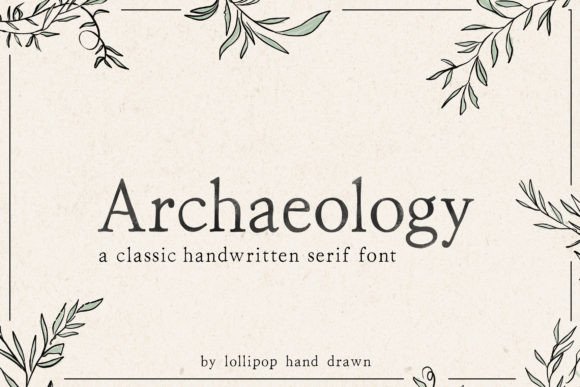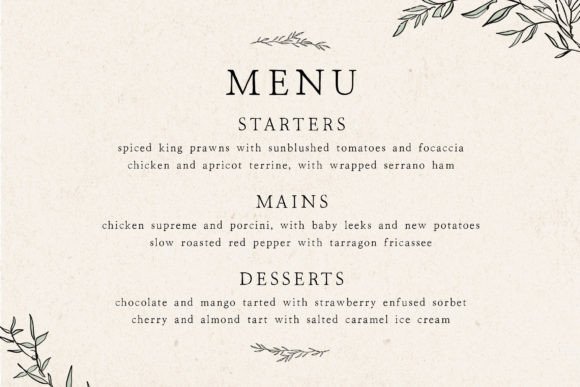
Archaeology is an authentic serif font that can help you add a personal note to any design! Try this beautiful typeface on letters, name tags, business cards, invitations, or anything exquisite.
Archaeology Font